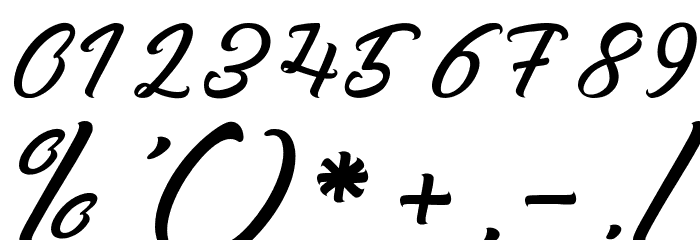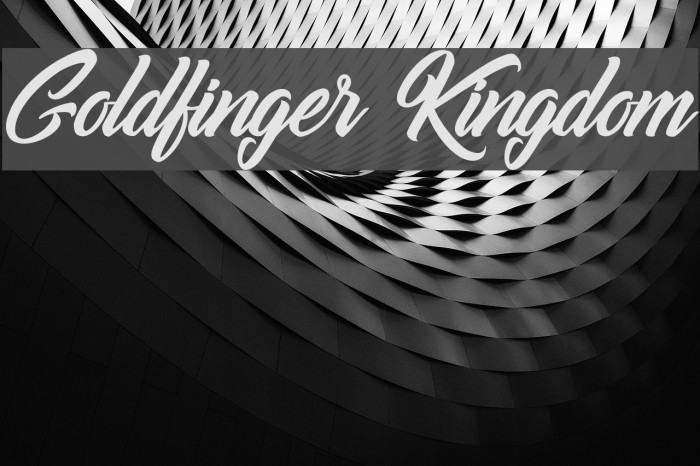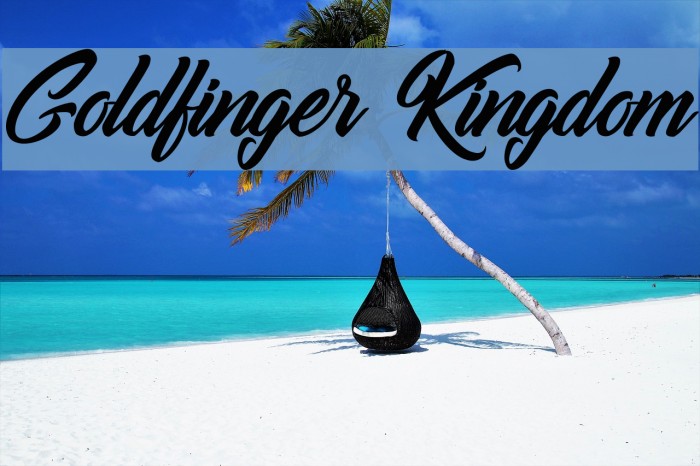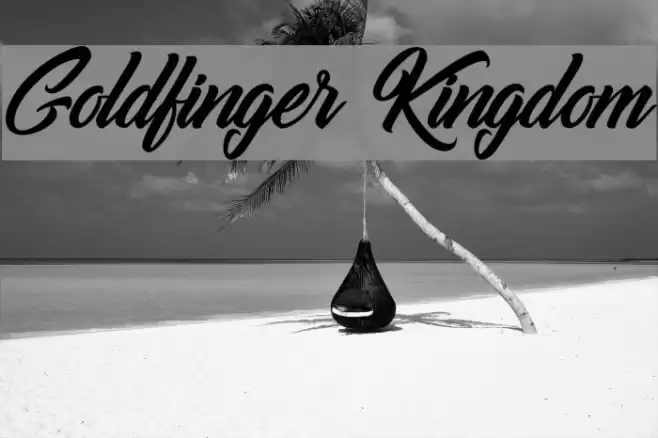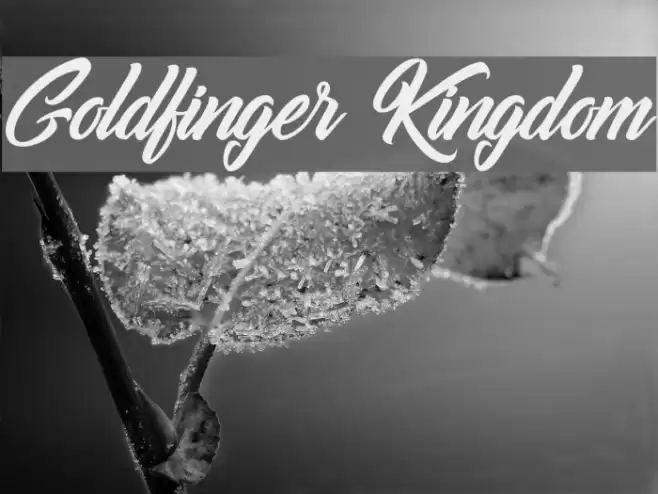
Goldfinger Kingdom Font
Goldfinger Kingdom Description
This font exudes elegance and sophistication with its flowing, cursive script style. The characters are intricately designed with smooth curves and flourishes, giving it a luxurious and artistic feel. The uppercase letters are particularly ornate, featuring extended strokes and loops that add a touch of grandeur. The lowercase letters maintain a consistent flow, complementing the uppercase with their graceful lines. Numbers and special characters are equally stylized, ensuring a cohesive look throughout. This font is perfect for projects that require a touch of class and refinement.
| Use Case | Logos, Headlines, Invitations |
| Proposed Projects | Ideal for wedding invitations, luxury branding, elegant packaging, and artistic posters. |